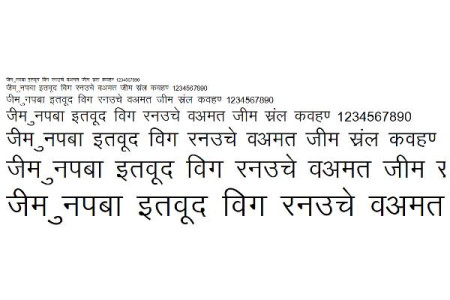
The New Delhi Font (Regular) is a clean and versatile Devanagari typeface designed for clarity and elegance. With its well-balanced letterforms, it is perfect for posters, banners, book covers, invitations, branding, and social media graphics.
Ideal for Hindi, Sanskrit, Marathi, and Nepali text, this font combines readability with traditional aesthetics, making it suitable for both cultural and modern design projects. Its neutral style allows it to pair seamlessly with other font variants like Bold or Italic.
Supported Script: Devanagari (Hindi / Sanskrit / Marathi / Nepali)
Font Style: Regular / Traditional Typeface
✨ A perfect balance of tradition and simplicity – New Delhi Font enhances all your Devanagari designs.
| Optimum Size | Large (Display / Poster) |